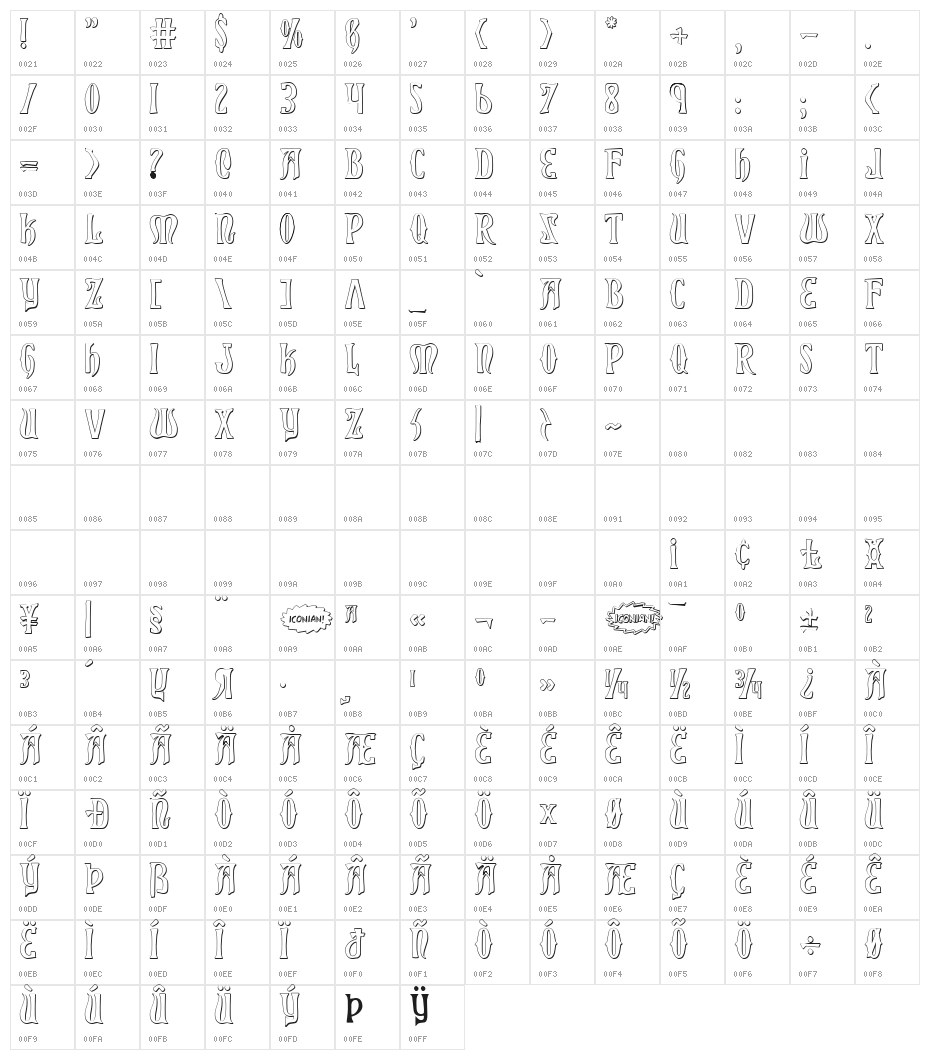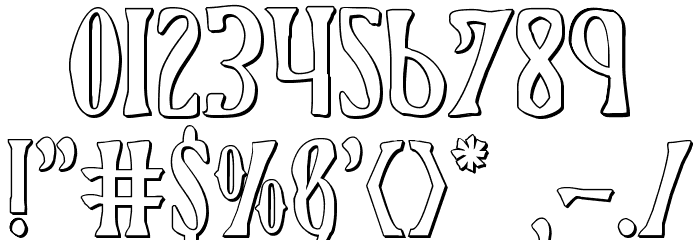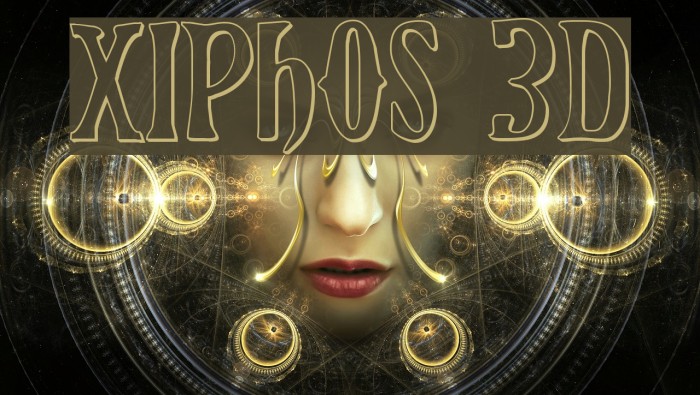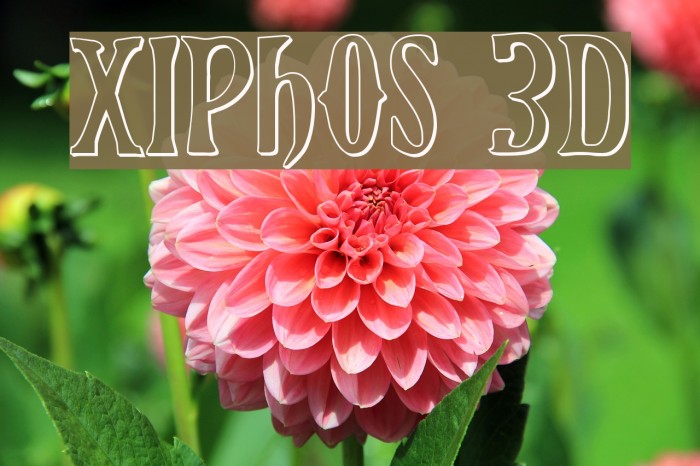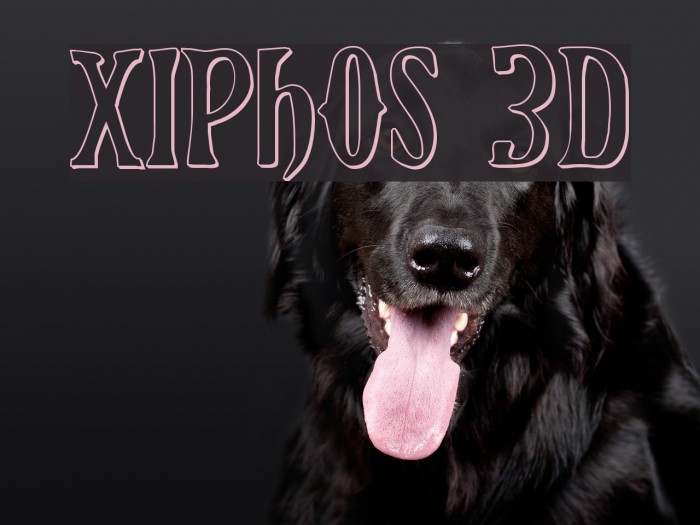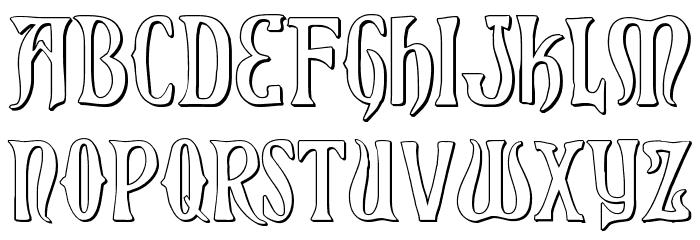
Xiphos 3D Font
Xiphos 3D Description
This font features a bold, three-dimensional outline style that gives it a striking and dynamic appearance. The characters are designed with a shadow effect that enhances their depth, making them stand out prominently. The uppercase and lowercase letters maintain a consistent style, with sharp angles and smooth curves that add to the font's unique aesthetic. The numbers and special characters are equally well-crafted, ensuring uniformity across all glyphs. This font is ideal for creating eye-catching headlines or titles that require a touch of flair and creativity.
| Proposed Projects | Ideal for posters, logos, video game graphics, and any project needing a bold, eye-catching typeface. |